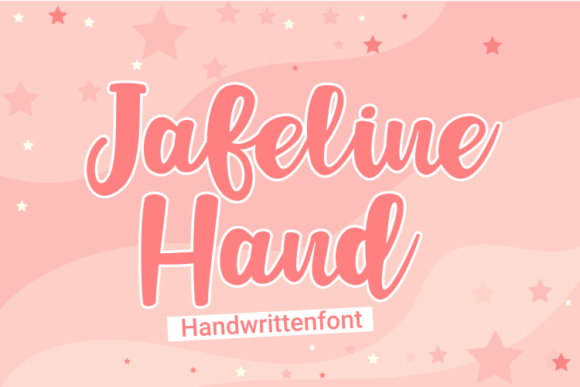
Introducing Jafeline Hand Font: A Stroke of Enchantment for Your Creative Endeavors
Embark on a typographic journey with Jafeline Hand Font, a captivating script font family that exudes charm and modernity. Inspired by the timeless beauty of classic calligraphy, this stunning handwritten font breathes life into your designs, transforming them into captivating masterpieces.
With its elegant curves and graceful flourishes, Jafeline Hand beckons you to explore its versatility. Whether you're a writer seeking to craft a distinctive MLA paper, a designer yearning for eye-catching logos, or a content creator longing for captivating social media posts, Jafeline Hand is your font of choice.
Immerse yourself in the world of Jafeline Hand, where creativity knows no bounds. Its intricate details and expressive strokes add a touch of sophistication to your projects, making them stand out from the mundane.
Unlock the Power of Jafeline Hand:
- Craft MLA papers that captivate your audience, leaving a lasting impression.
- Design logos that radiate elegance and distinction, setting your brand apart from the rest.
- Create social media posts that dance off the screen, captivating your followers with their charm.
- Unleash your imagination and delve into a world of endless possibilities with Jafeline Hand.
Step into the realm of Jafeline Hand and witness the transformation of your creative endeavors. Embrace the allure of this remarkable font family and watch as your designs blossom into works of art.